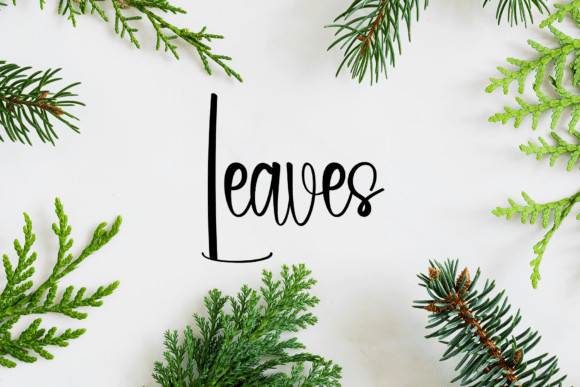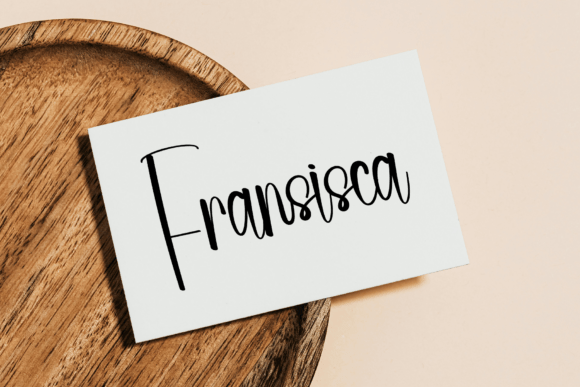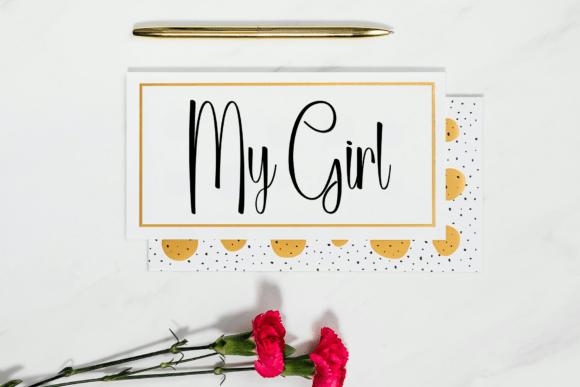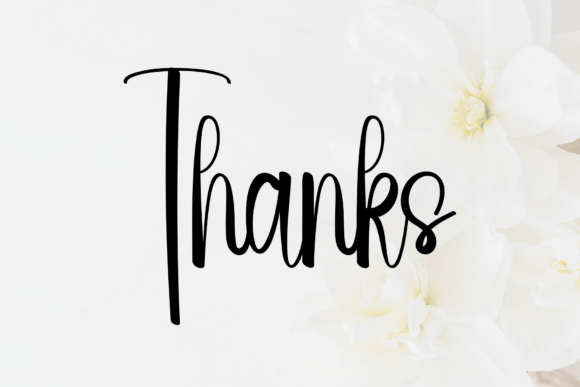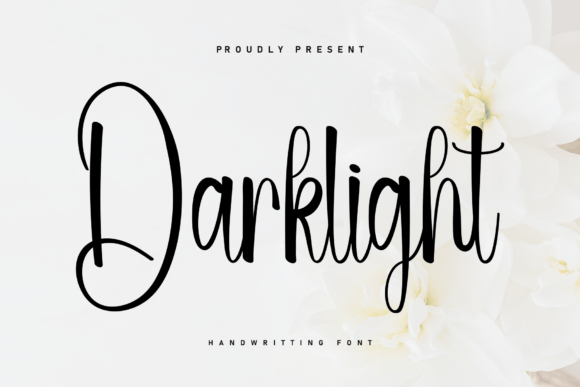
Discover the Elegance of Darklight Font: Elevate Your Designs with Sophistication
In the world of typography, few fonts capture the essence of luxury and sophistication as effortlessly as Darklight. This exquisite handwriting font is a masterclass in contemporary calligraphy, boasting delicate connections and elegant, sweeping loops that evoke the signature of a visionary creator. If you’re a designer, crafter, or simply someone who appreciates the finer things in life, Darklight is sure to leave a lasting impression.
The Characteristics of Darklight Font
Darklight’s airy aesthetic and rhythmic flow make it the perfect choice for those seeking to add a touch of high-end sophistication to their designs. This font’s unique vibe is best described as elegant, fluid, and refined, making it an ideal selection for luxury branding, wedding invitations, and prestigious photography watermarks.
One of the standout features of Darklight is its ability to convey a sense of movement and fluidity. The delicate connections between letters create a sense of continuity, while the sweeping loops add a touch of drama and flair. This font is truly a work of art, and its beauty is sure to elevate any design it’s used in.
Ideal Uses for Darklight Font
So, where can you use Darklight to make a lasting impression? Here are a few ideas to get you started:
- Wedding Stationery: Darklight is the perfect choice for wedding invitations, save-the-dates, and thank-you cards. Its elegant, sophisticated vibe sets the tone for a luxurious and unforgettable celebration.
- Professional Portfolios: If you’re a photographer, designer, or creative professional, Darklight is an excellent choice for your portfolio. Its refined aesthetic adds a touch of sophistication to your work, helping you stand out from the competition.
- Bespoke Luxury Packaging: Darklight is also an excellent choice for luxury brands seeking to create bespoke packaging that exudes elegance and refinement. Whether you’re packaging high-end jewelry, perfumes, or cosmetics, this font is sure to make a lasting impression.
Why Designers and Crafters Love Darklight Font
So, what is it about Darklight that makes it so beloved among designers and crafters? Here are a few reasons why this font has become a favorite:
- Versatility: Darklight is an incredibly versatile font, suitable for a wide range of design applications. Whether you’re creating wedding stationery, professional portfolios, or luxury packaging, this font is sure to shine.
- Elegance: Darklight’s elegant, sophisticated vibe makes it an excellent choice for designers seeking to create high-end designs. Its refined aesthetic adds a touch of luxury to any project.
- Easy to Read: Despite its elegant, cursive nature, Darklight is surprisingly easy to read. This makes it an excellent choice for designs where clarity is essential, such as wedding invitations or professional portfolios.
Tips for Using Darklight Font Effectively
To get the most out of Darklight, here are a few tips to keep in mind:
- Pair it with Neutrals: Darklight’s bold, elegant aesthetic makes it an excellent choice for designs featuring neutral color palettes. Pair it with soft pinks, whites, or creams for a truly stunning effect.
- Experiment with Sizes: Don’t be afraid to experiment with different font sizes to add visual interest to your designs. Darklight looks stunning in large sizes, but it’s also effective in smaller sizes.
- Add Decorative Elements: To take your designs to the next level, consider adding decorative elements such as ribbons, flowers, or other embellishments. Darklight’s elegant aesthetic pairs beautifully with these types of elements.
In conclusion, Darklight is a truly exceptional font that offers a sophisticated take on contemporary calligraphy. Its elegant, fluid aesthetic makes it the perfect choice for luxury branding, wedding invitations, and prestigious photography watermarks. Whether you’re a designer, crafter, or simply someone who appreciates the finer things in life, Darklight is sure to leave a lasting impression.